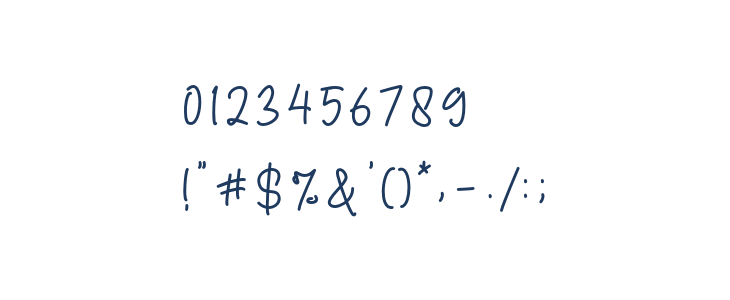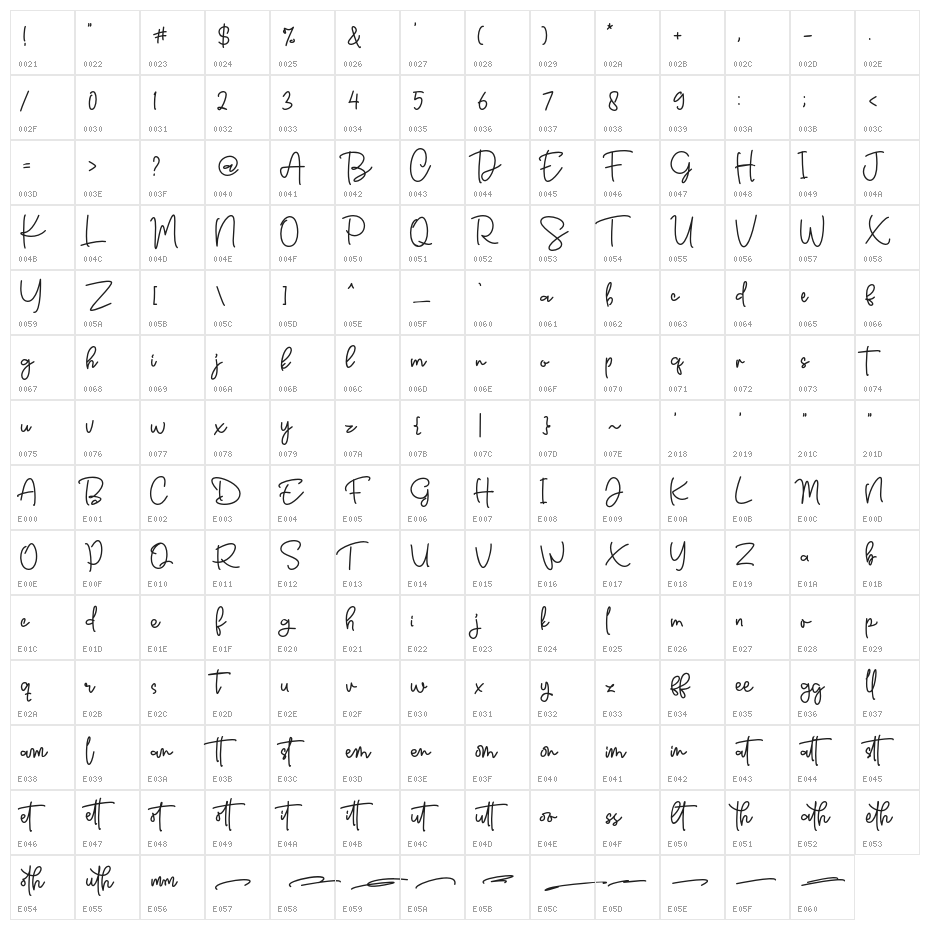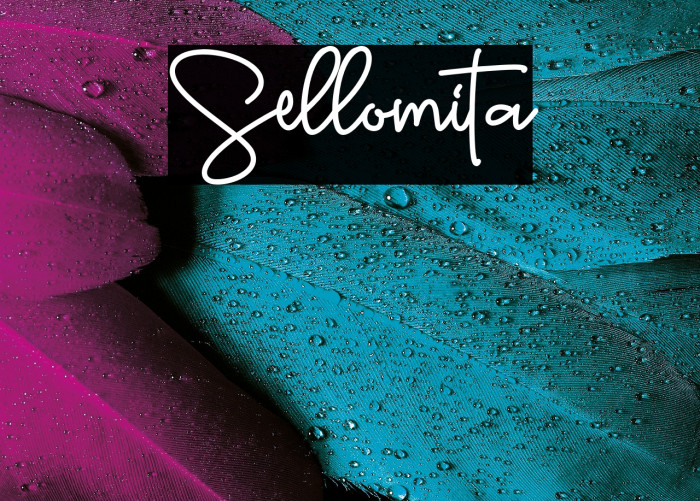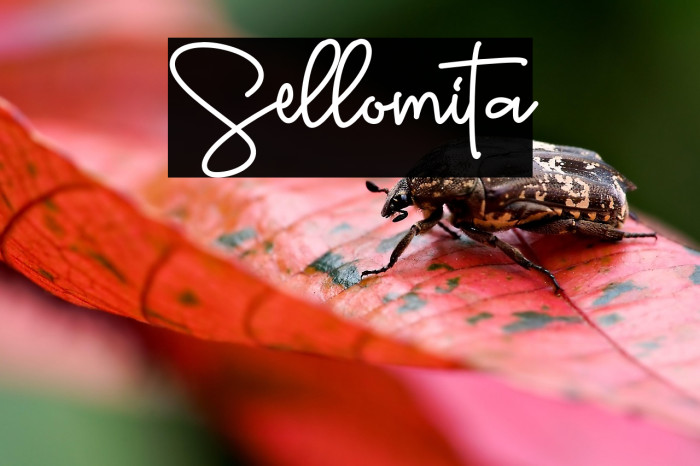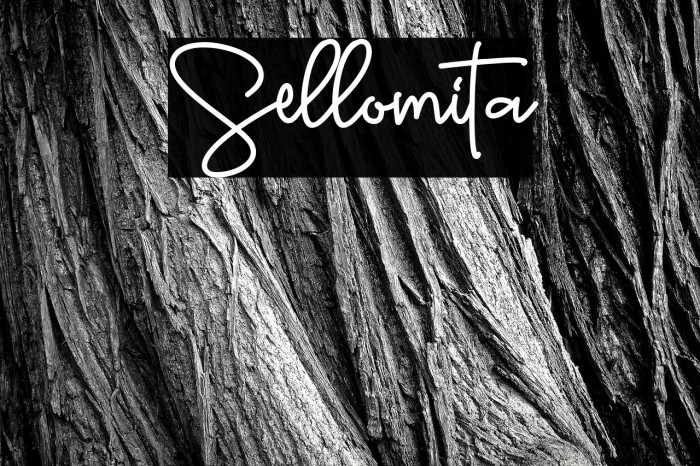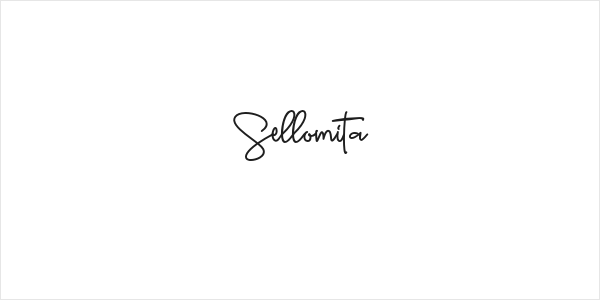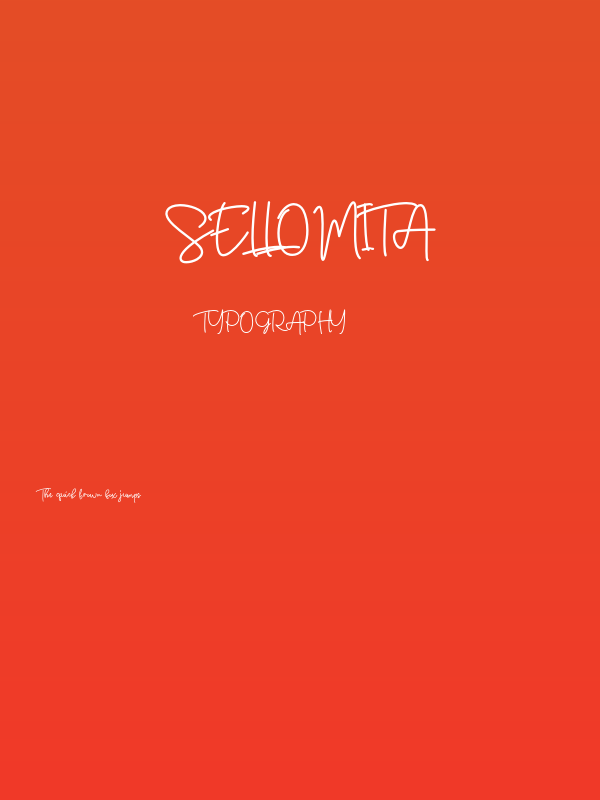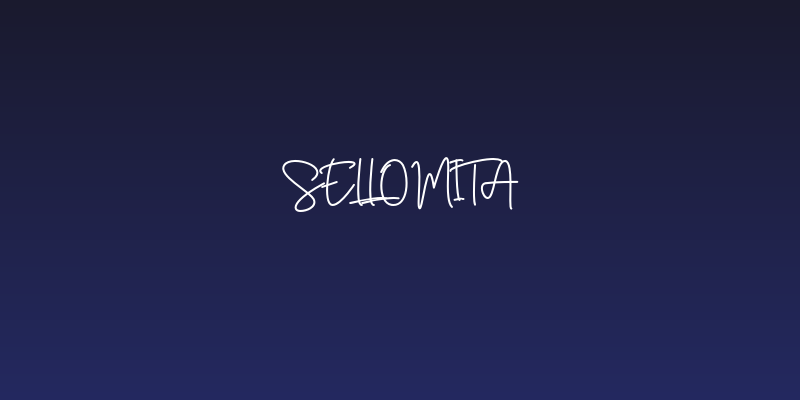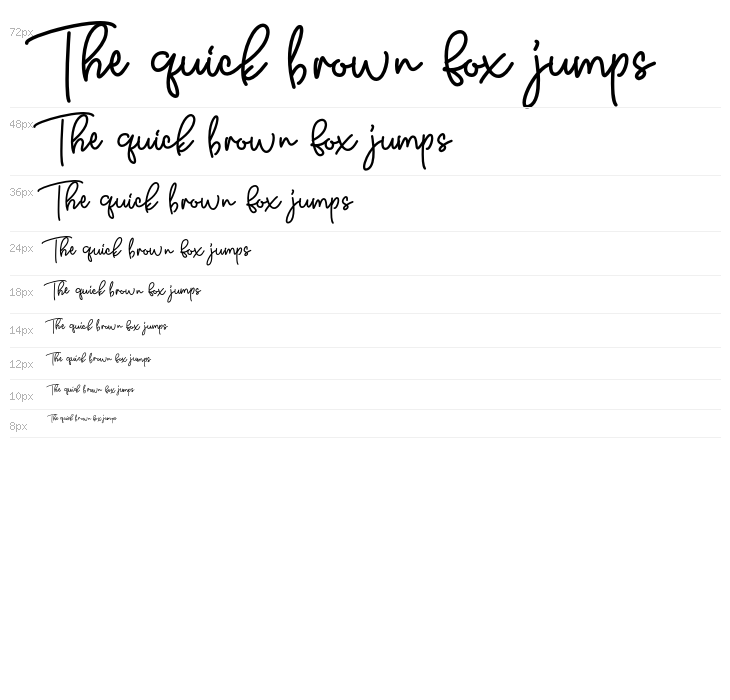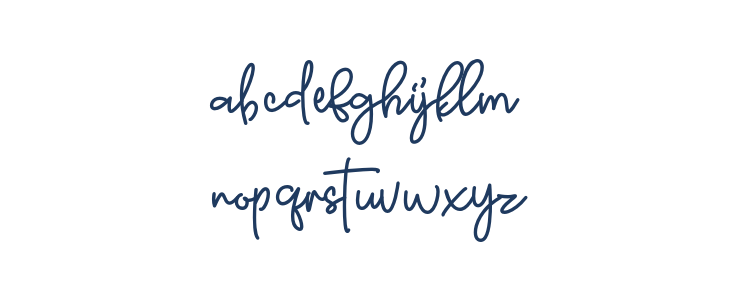
Sellomita Font
Sellomita Description
This font features a playful and casual handwritten style, characterized by its fluid and dynamic strokes. The uppercase letters are tall and slightly narrow, with a whimsical flair that adds a touch of personality. The lowercase letters maintain a consistent flow, with some characters featuring loops and swirls that enhance the handwritten aesthetic. The numerals are clear and legible, matching the overall style of the alphabet. Special characters are included, maintaining the same playful and informal tone. This font is ideal for projects that require a personal touch, such as invitations, greeting cards, or creative branding.
| Proposed Projects | Ideal for invitations, greeting cards, creative branding, and personal projects. |